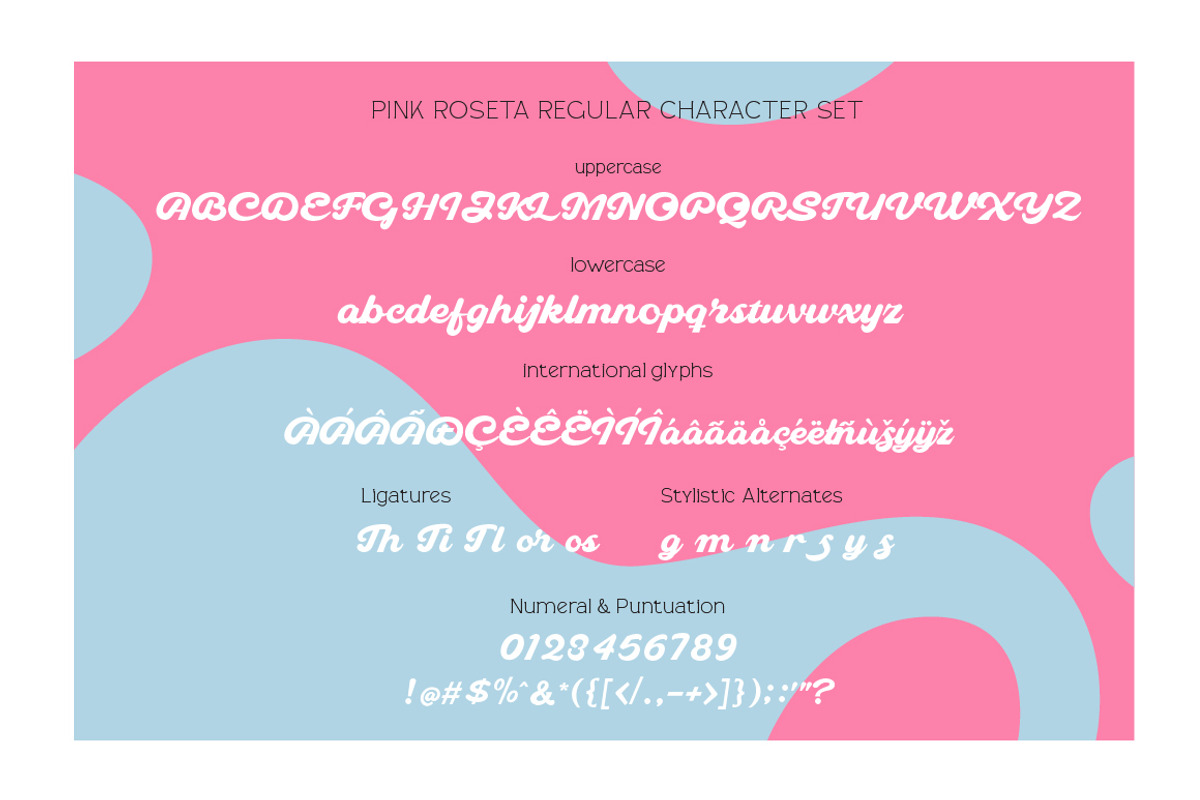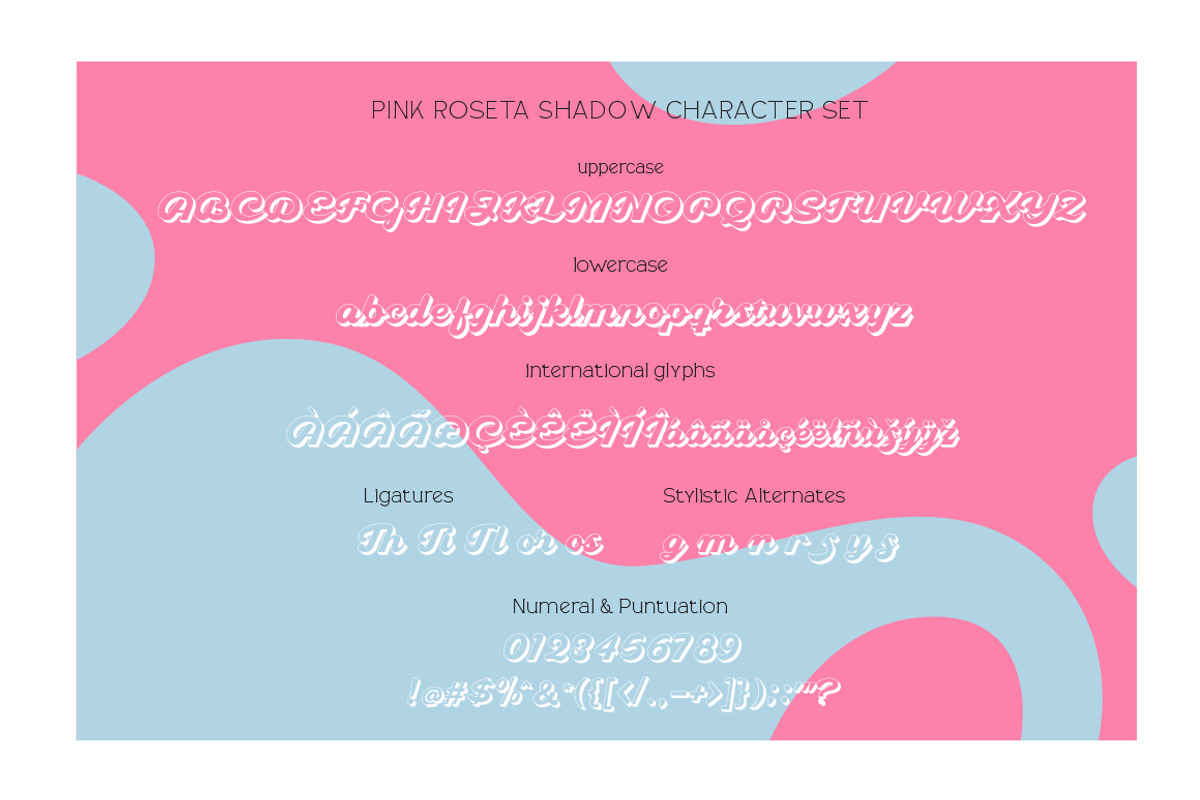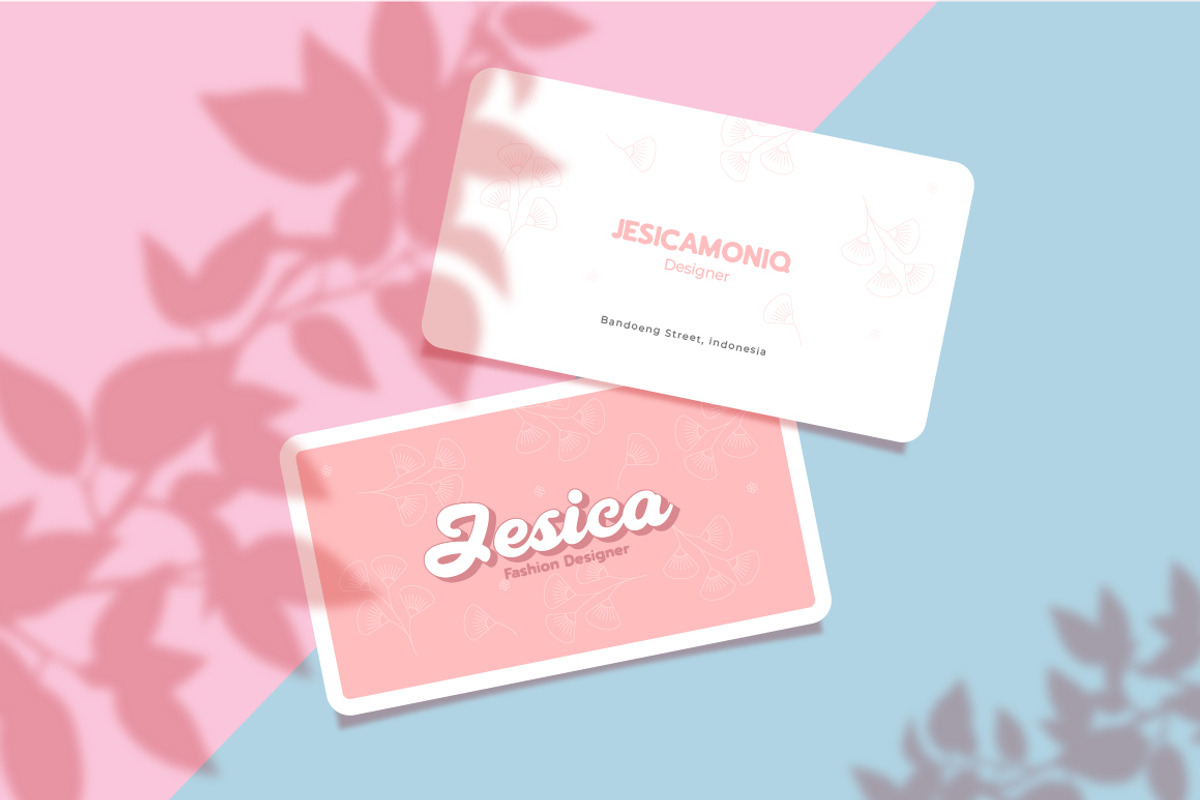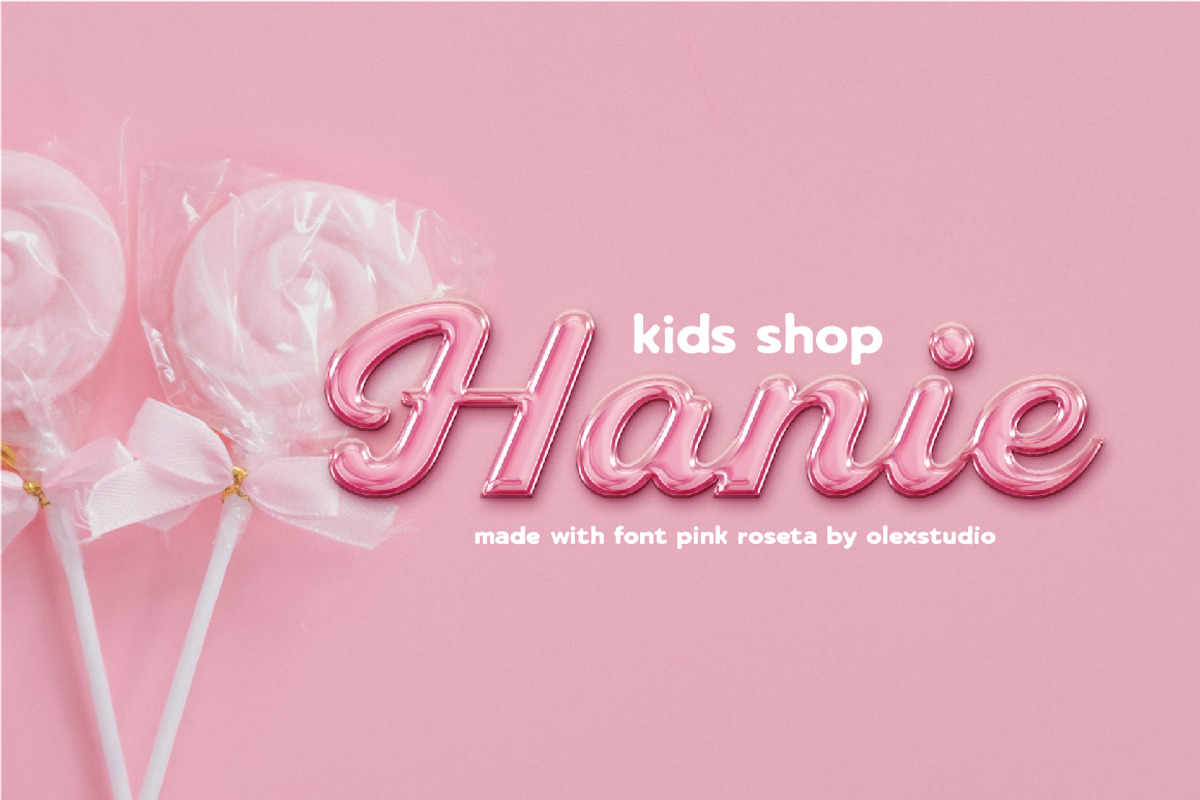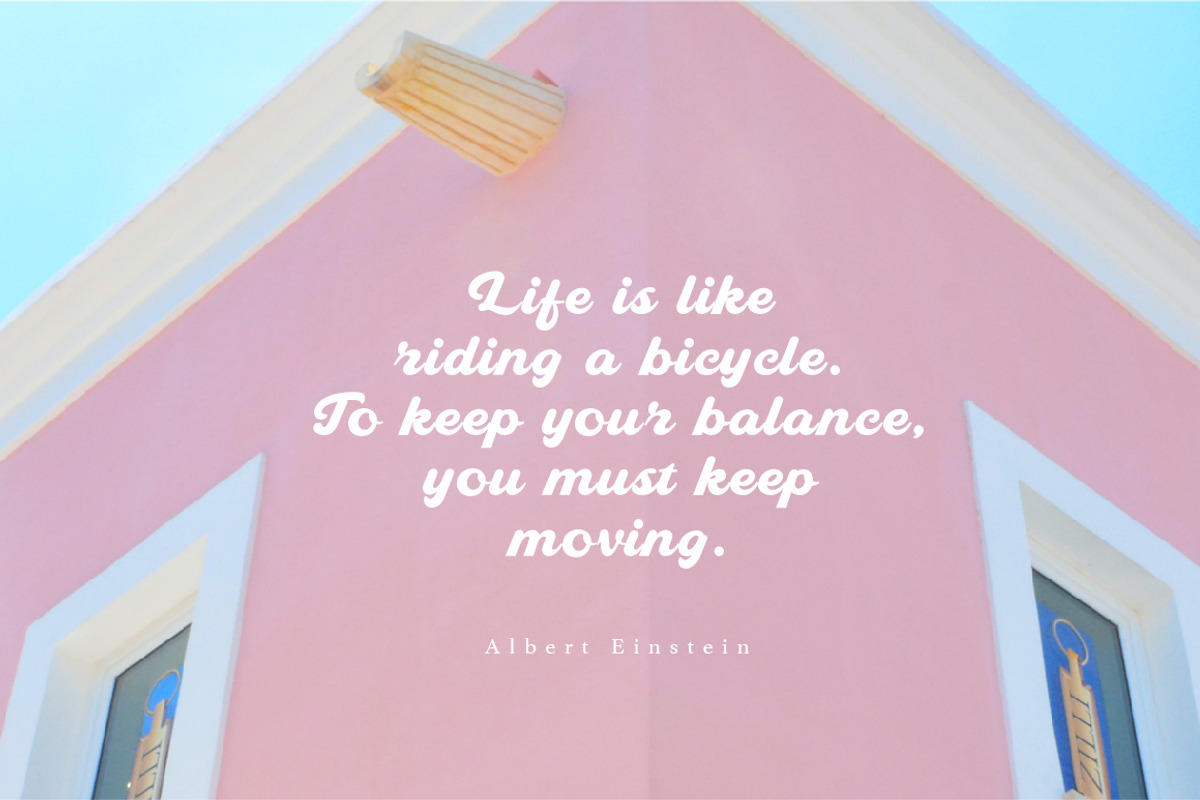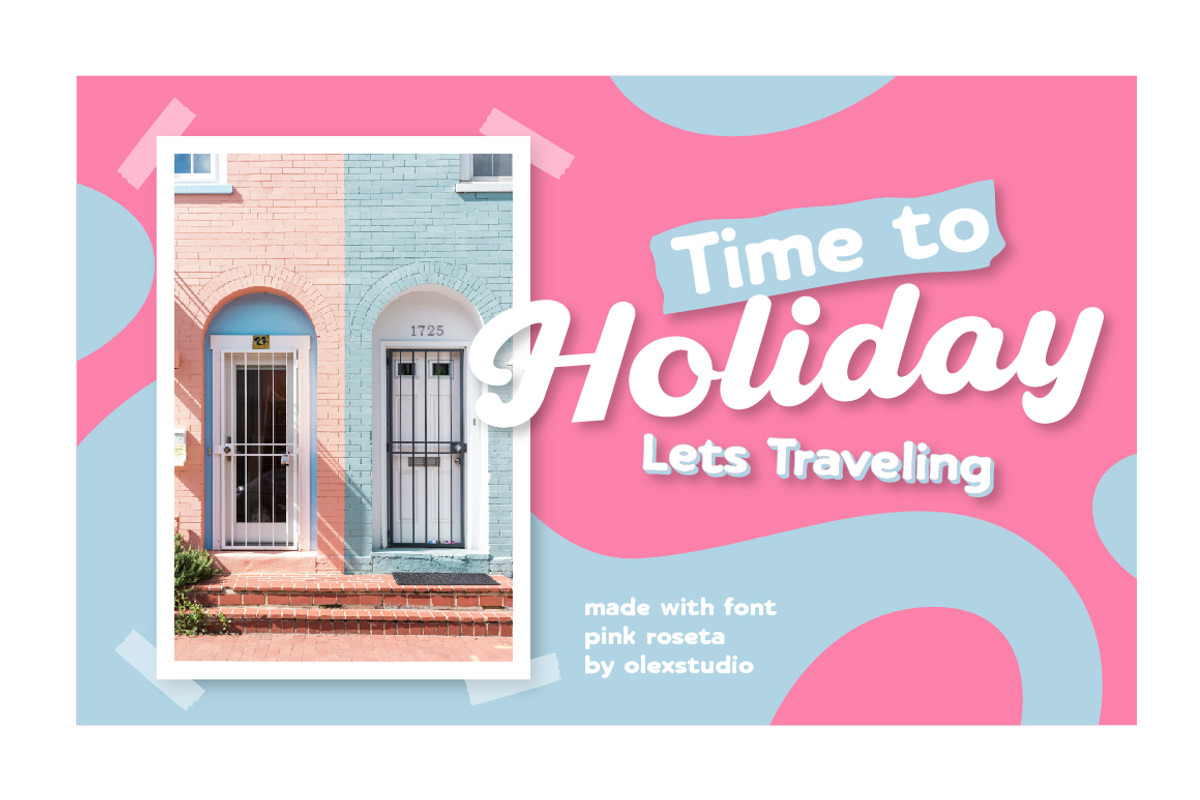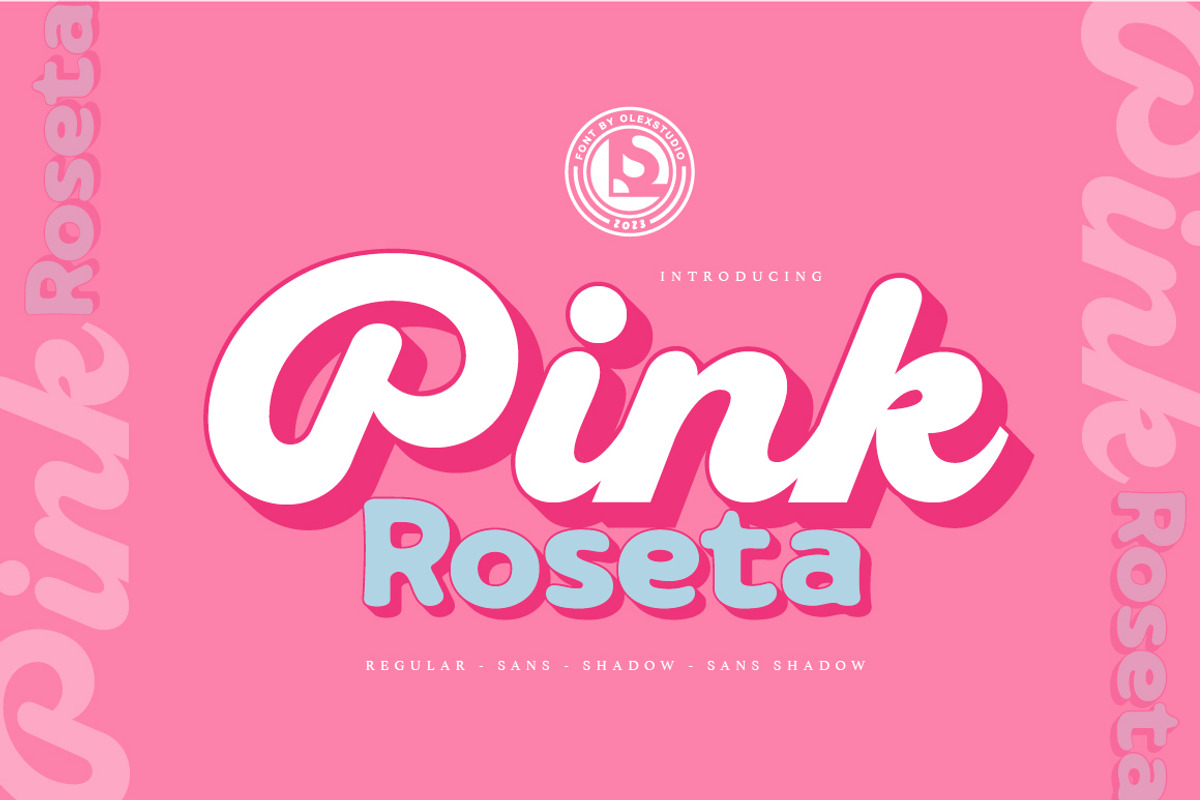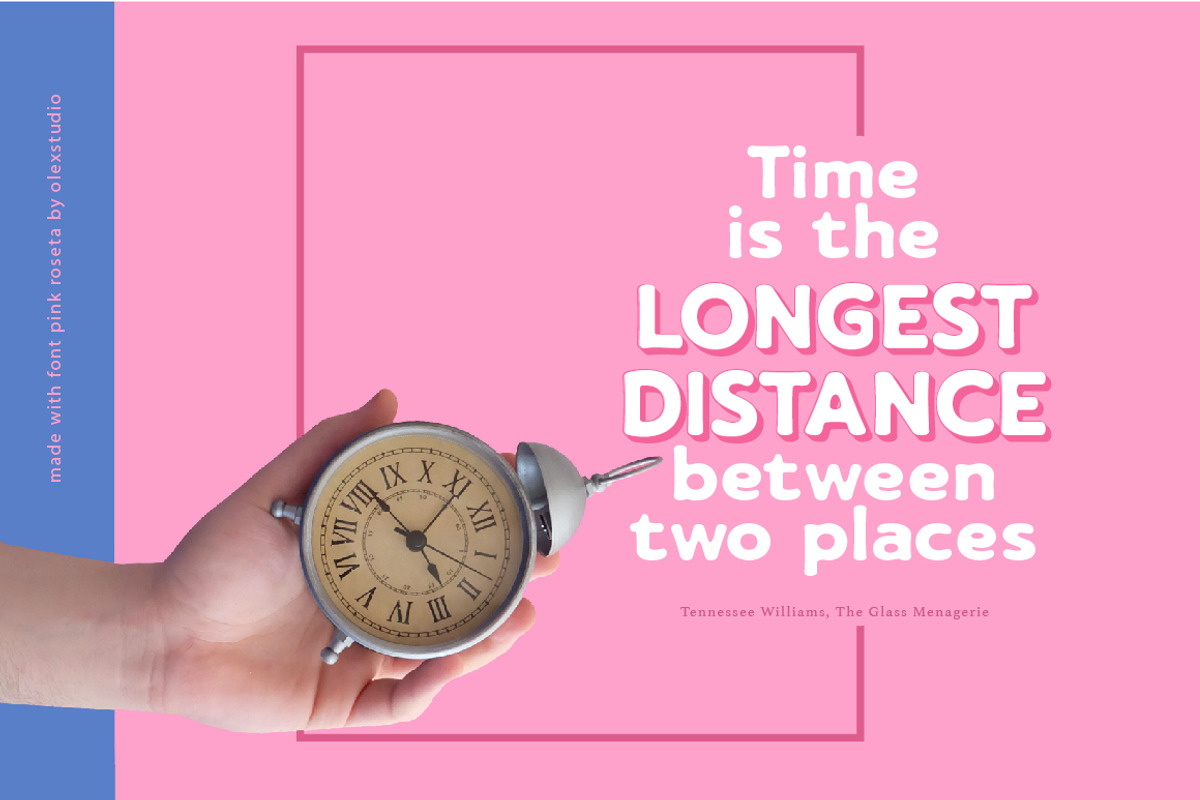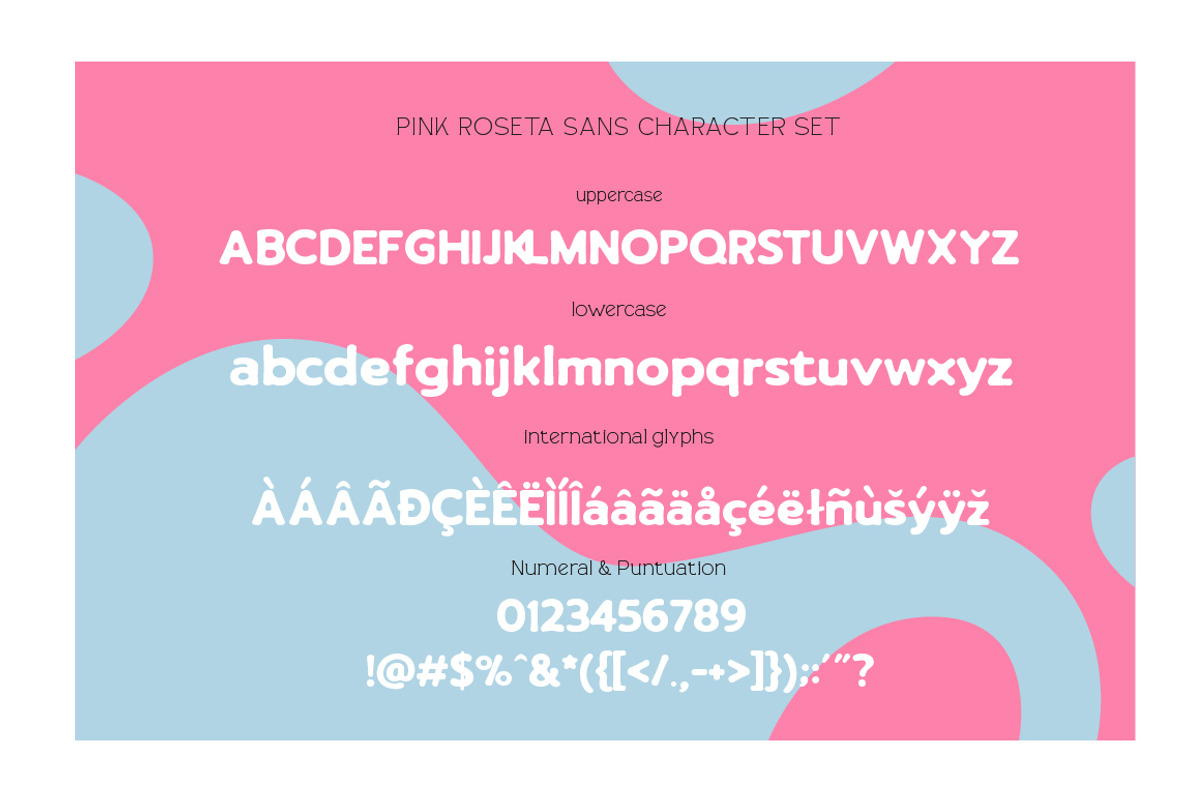
PINK ROSETA Typeface
PINK ROSETA Typeface will look gorgeous on all your designs, invitation, poster design, book design, branding materials, logo's, and all project design other.
PINK ROSETA Typeface contains standard characters, Lowercase, Uppercase, Alternates, numbers, punctuation, ligatures and international glyphs. You will receive OTF, TTF files & WEBFONT.
- pink roseta
- pink roseta sans
- pink roseta shadow
- pink roseta sans shadow